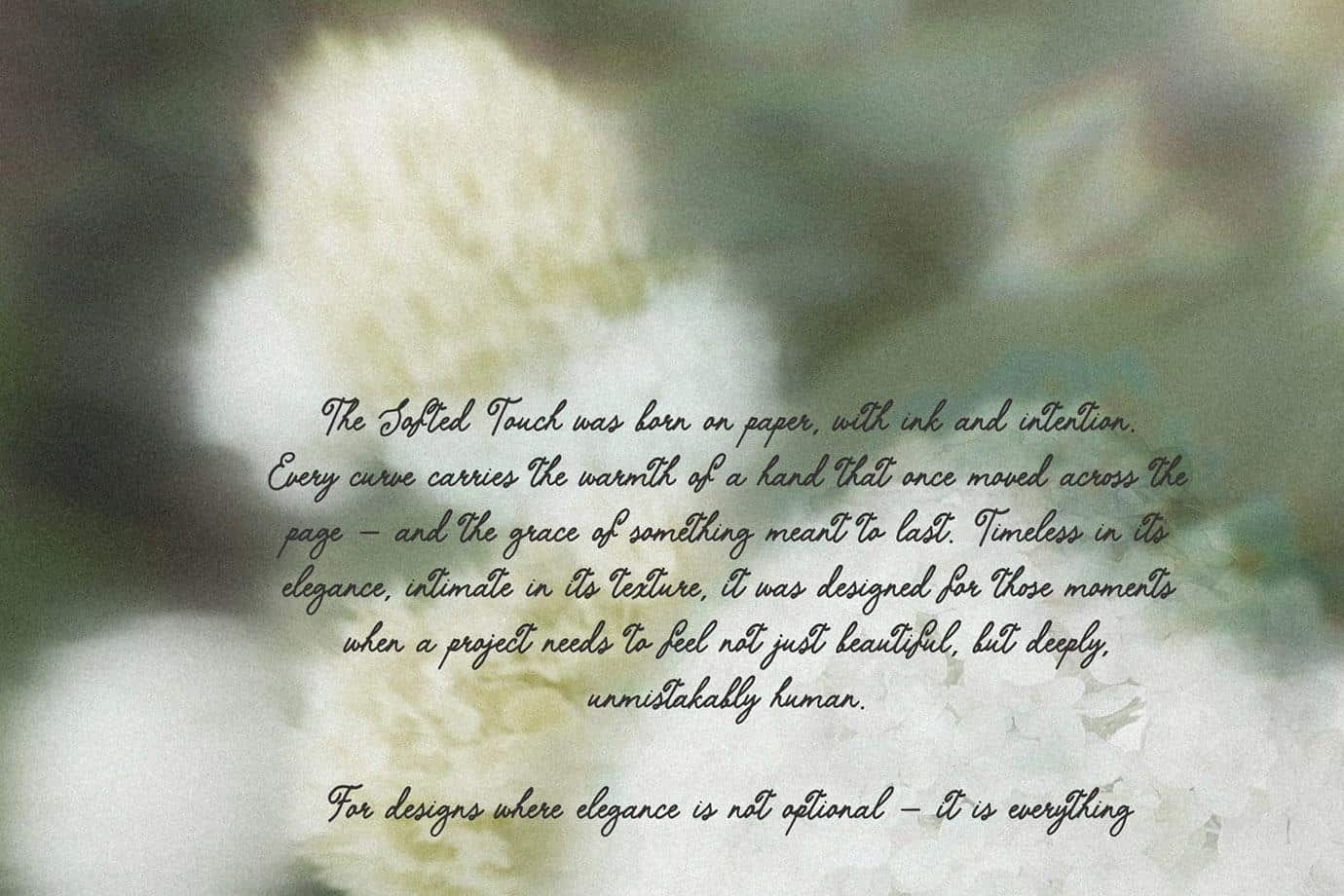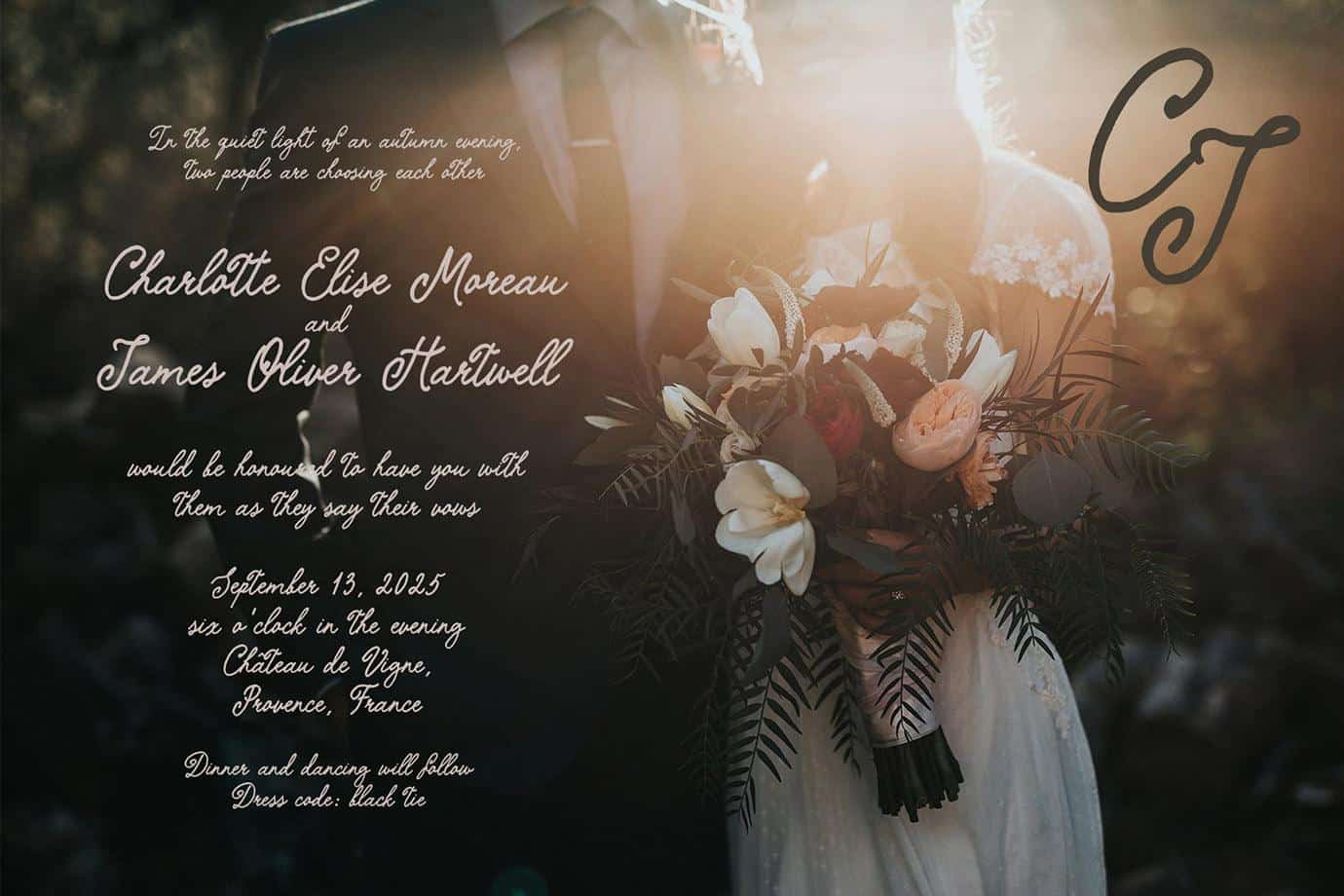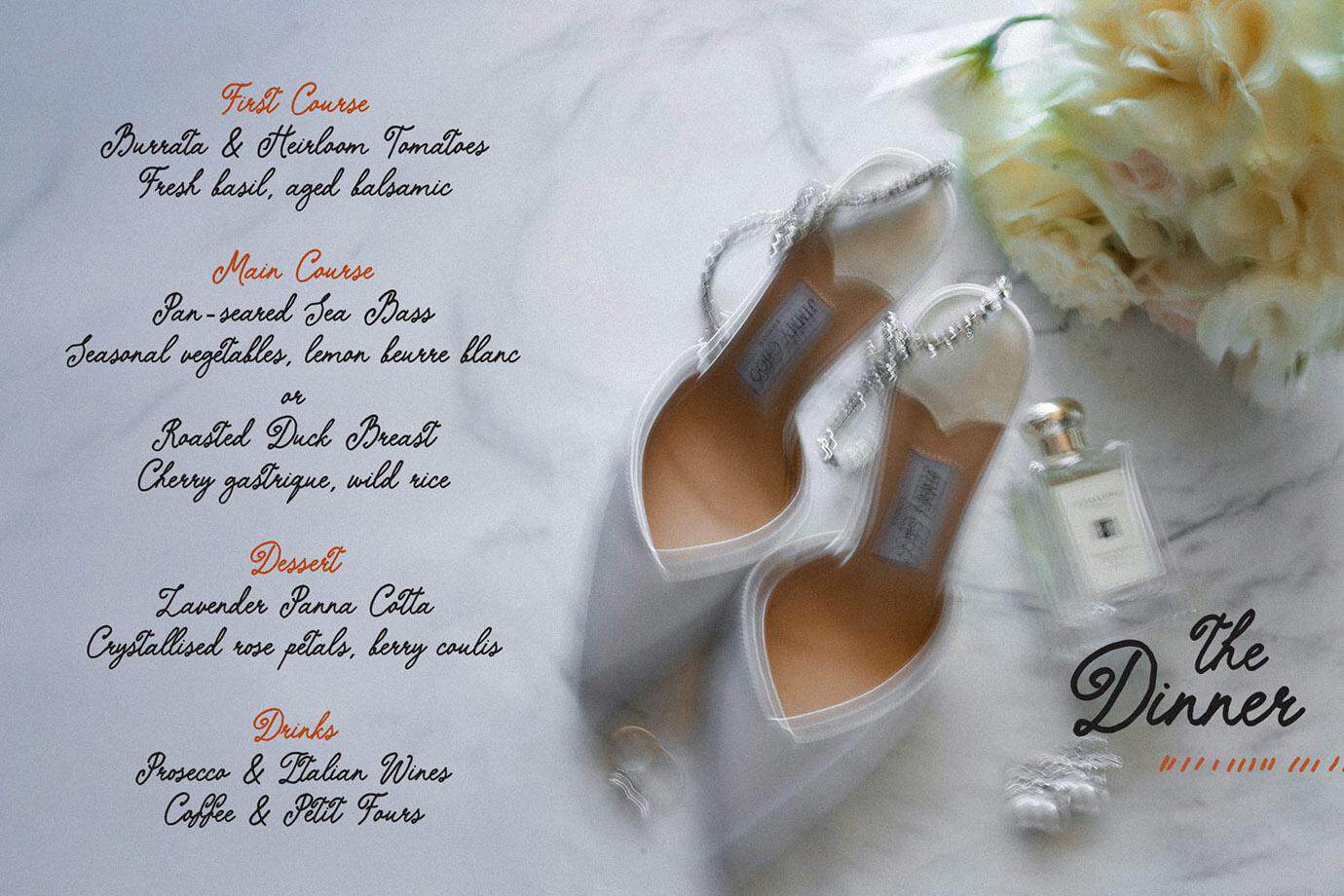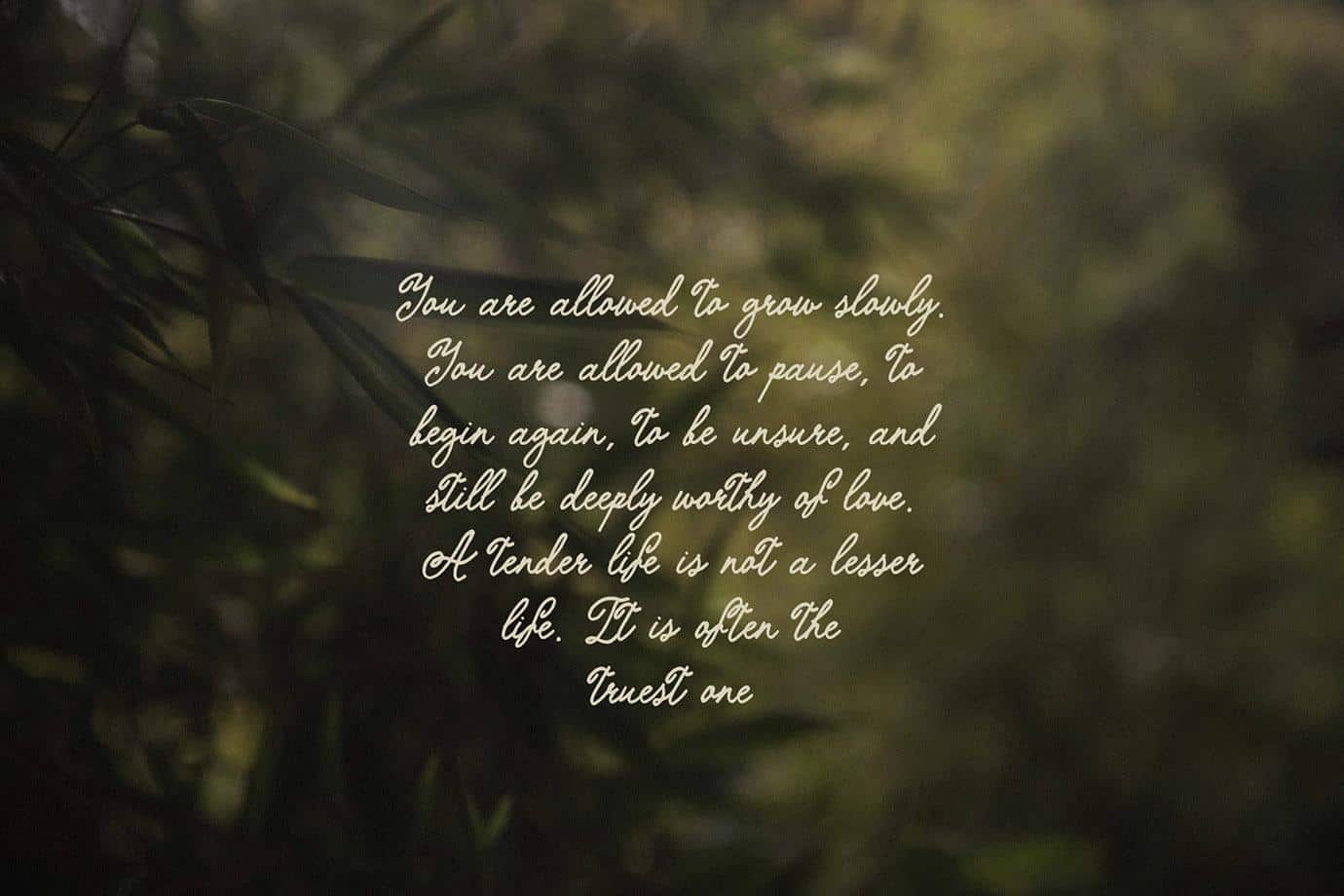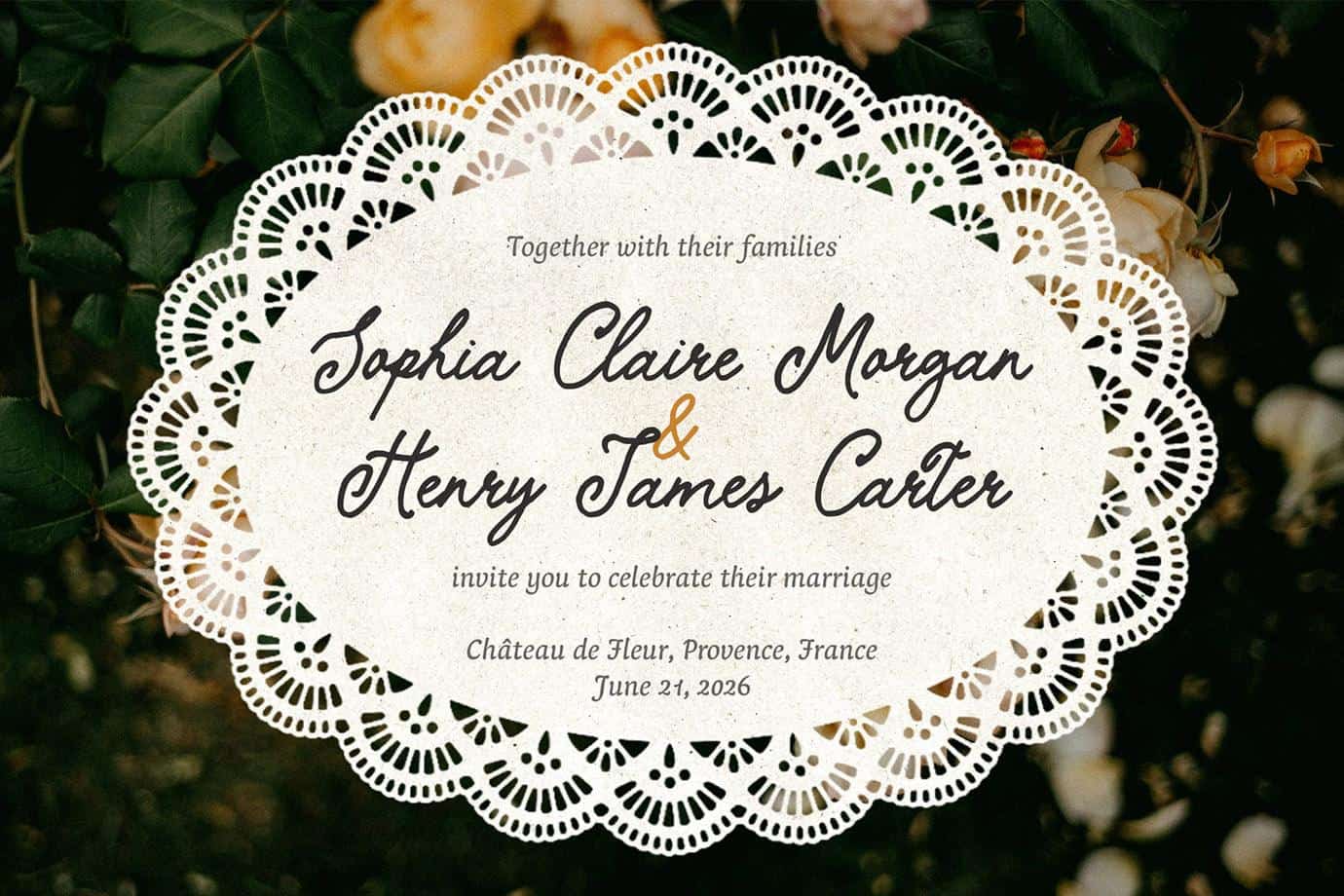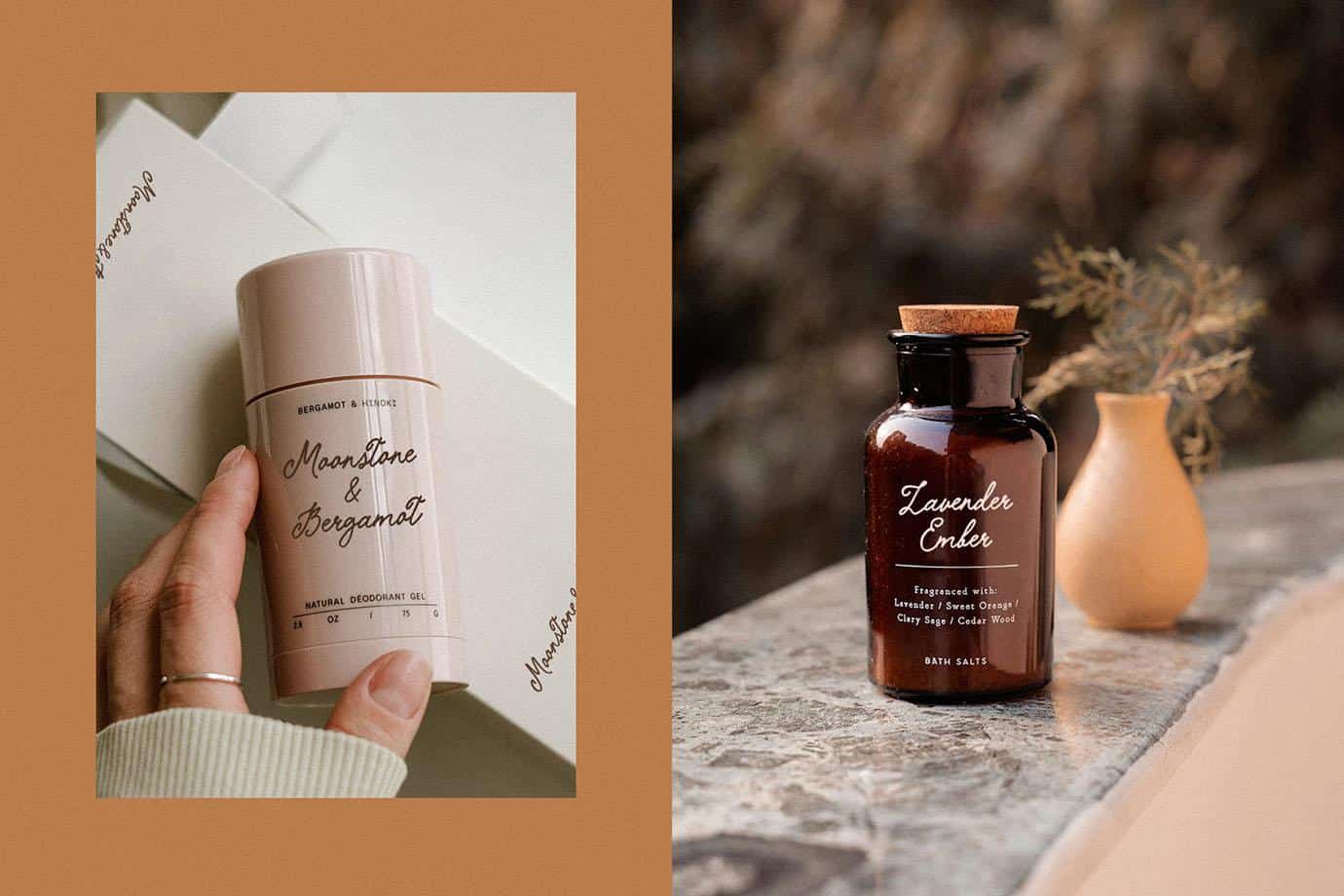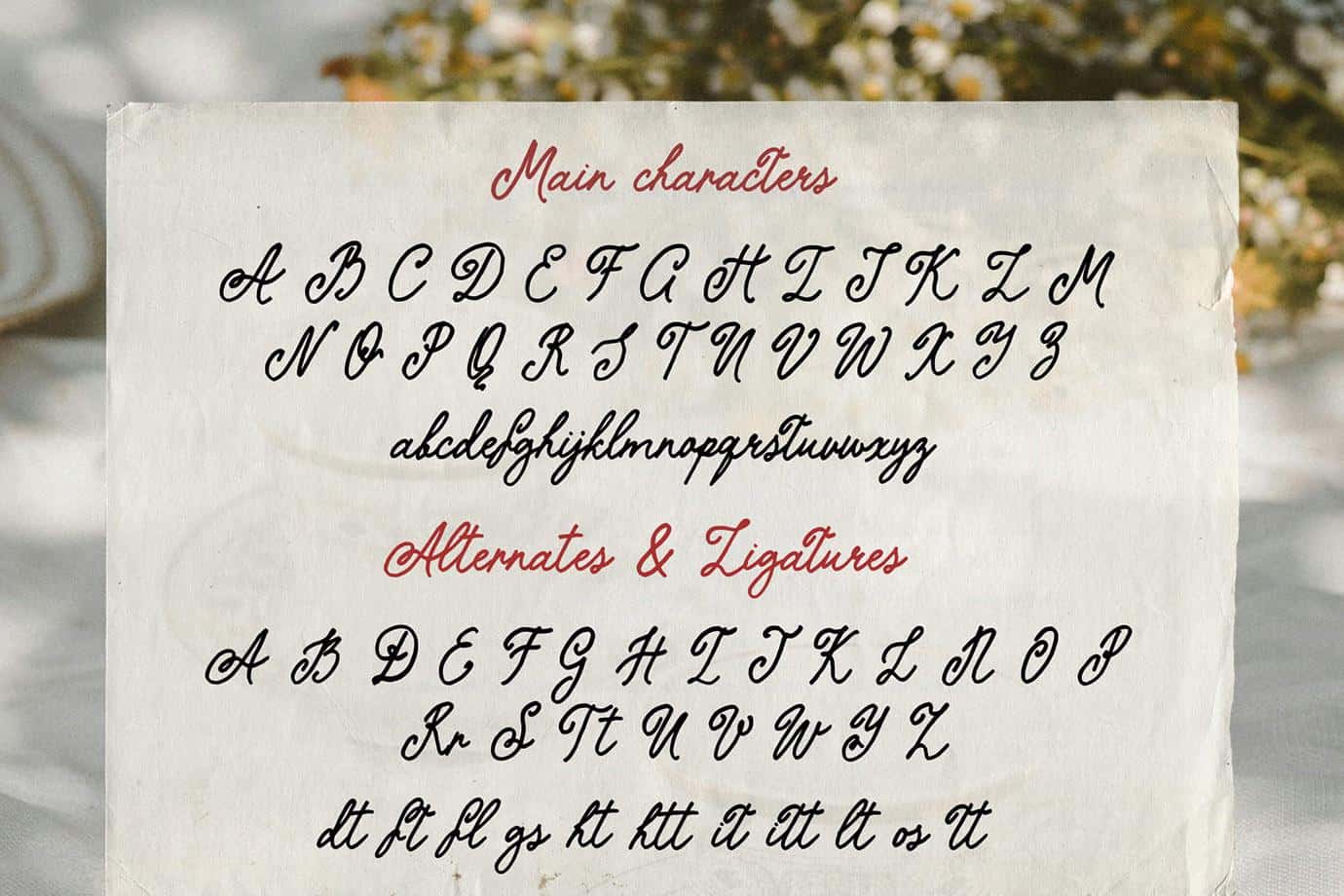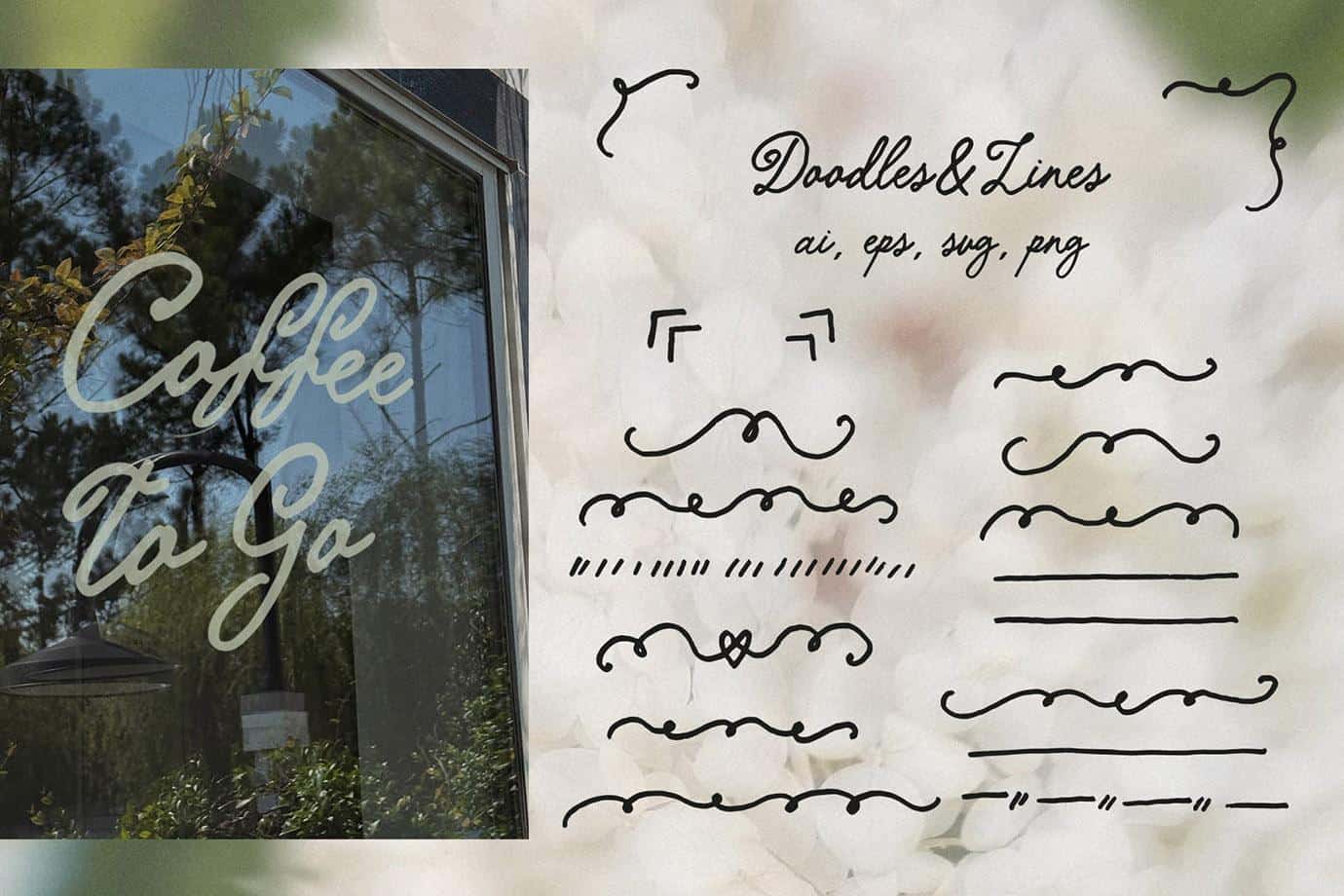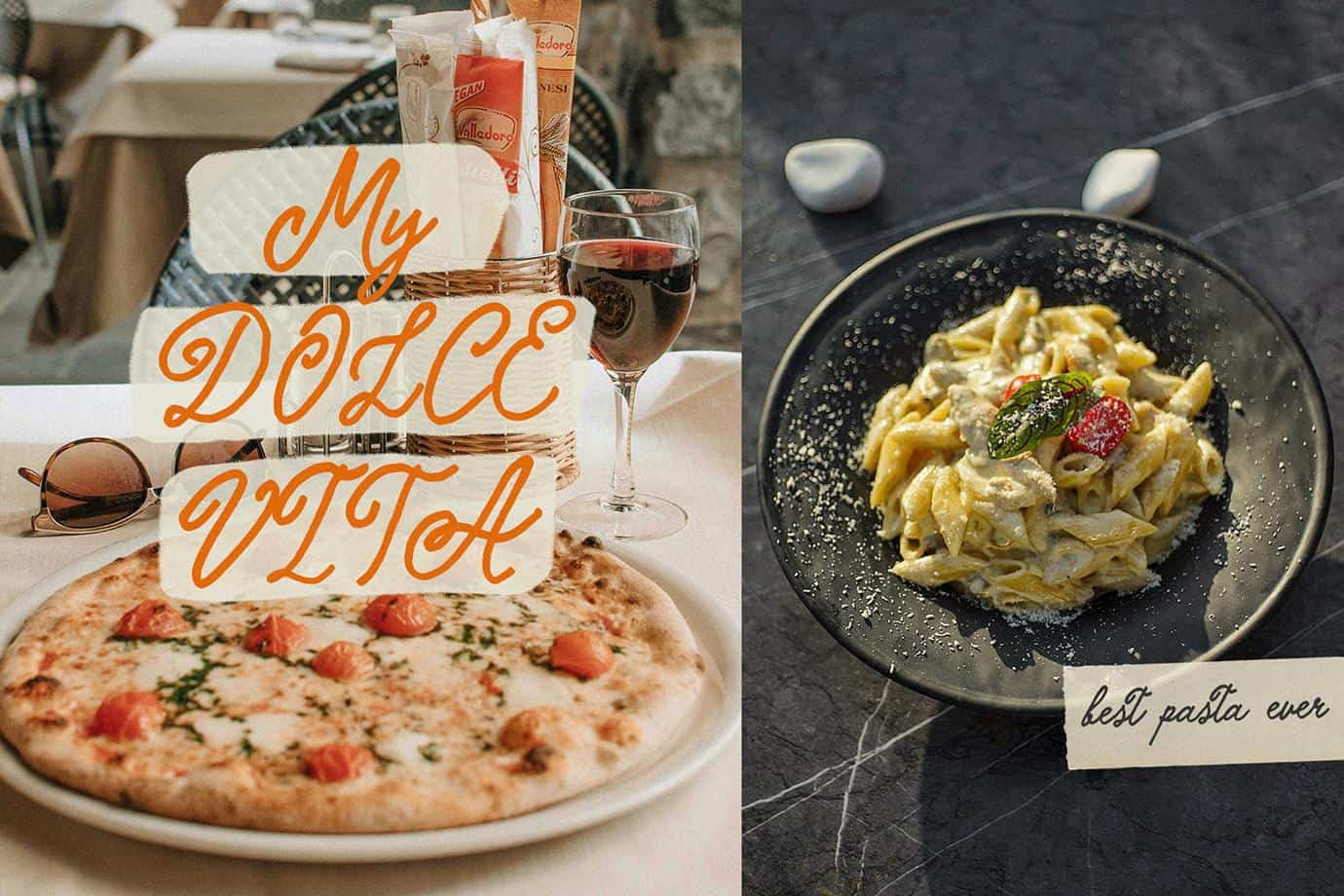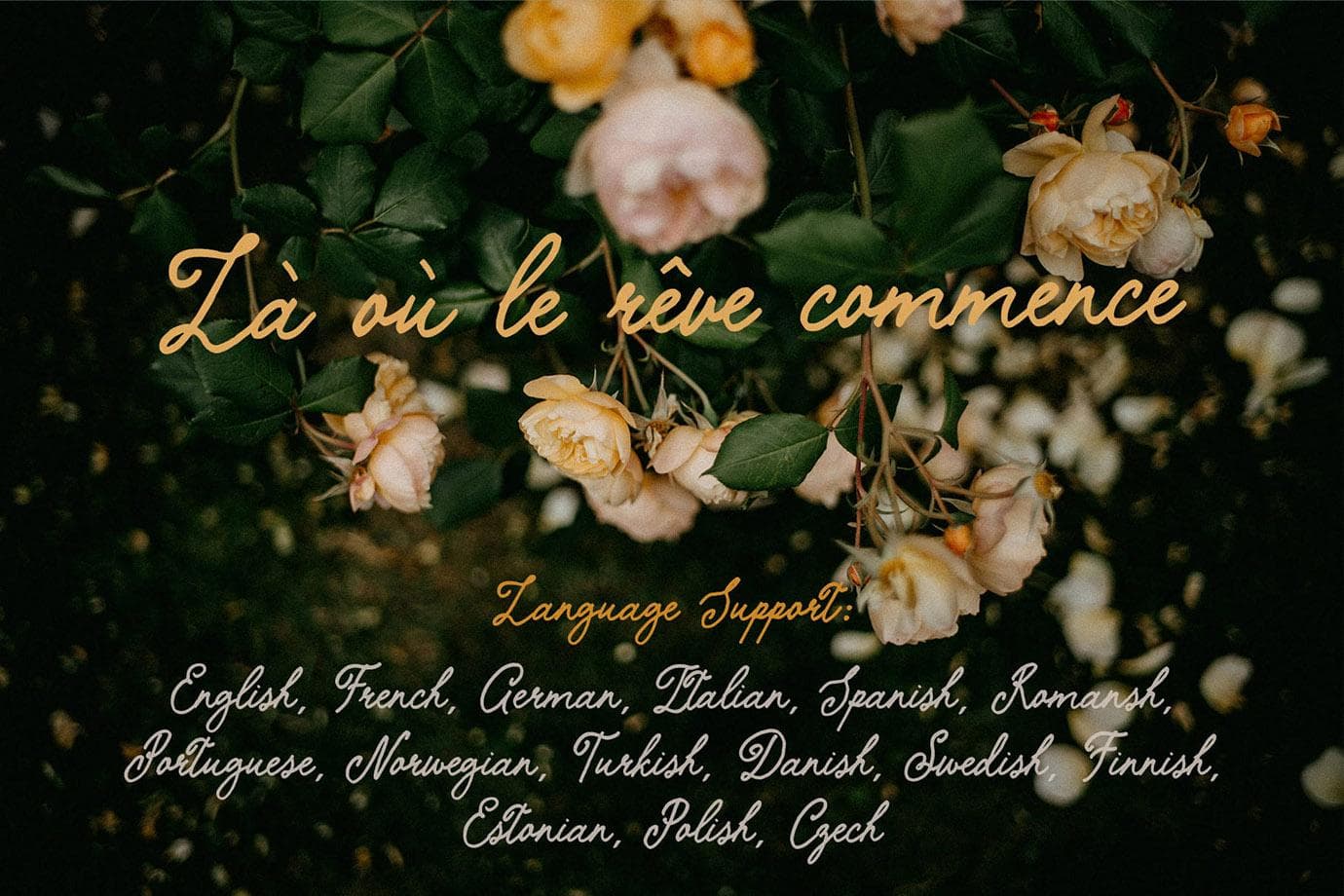
The Softed Touch — Elegant Vintage Script Font for Modern Design
The Softed Touch is a handwritten script font that takes the beauty of vintage penmanship and brings it firmly into the present
The Softed Touch: Where Vintage Handwriting Meets Contemporary Elegance
The Softed Touch is a handwritten script font that takes the beauty of vintage penmanship and brings it firmly into the present.
Written with a pen on paper and carefully vectorized, it carries the authentic texture of real ink — the kind of subtle imperfection that makes a design feel considered, personal, and alive. But this is not nostalgia for its own sake. This is vintage, reinterpreted through a contemporary lens: refined, intentional, and unmistakably current.
The result is a script font that feels both timeless and of-the-moment — at home in a luxury brand identity just as naturally as it is in a modern wedding invitation or an editorial spread.
Why designers choose this font:
– Authentic handwritten texture with a polished, contemporary finish
– Elegant swirls and tall, graceful letterforms that photograph beautifully
– A perfect balance of vintage warmth and modern sophistication
– Trending aesthetic — fits seamlessly into soft luxury, editorial and bridal design
– Multilingual support for versatile international use. Supported languages: English, French, German, Italian, Spanish, Portuguese, Danish, Norwegian, Swedish, Finnish, Estonian, Romansh, Turkish, Polish, Czech.
Perfect for:
Modern wedding invitations & luxury stationery
Contemporary branding, fashion editorial & lifestyle content
Upscale packaging & product labels
Logo design, monograms & personal branding
Social media graphics, Pinterest content & aesthetic quotes
Personalised gifts with an elegant, handcrafted feel
The aesthetic:
The Softed Touch sits at the intersection of heritage and trend — the kind of typeface that feels like it has always existed, yet looks entirely fresh. It is the detail that elevates a design from beautiful to unforgettable.
It holds the touch of a hand, the elegance of another era, and the clarity of a designer who knows exactly what modern luxury looks like.
For designs where elegance is not optional — it is everything.